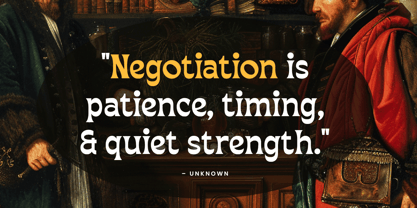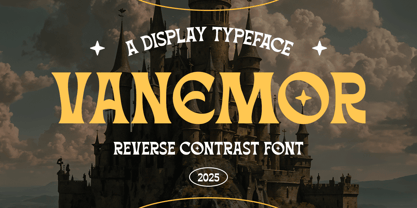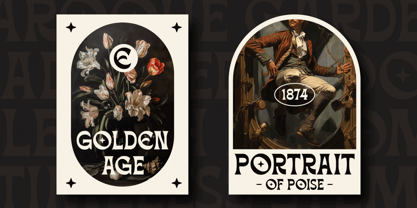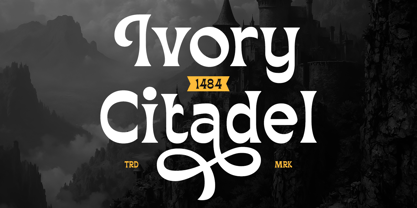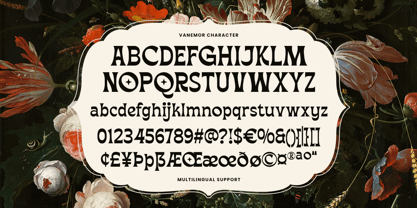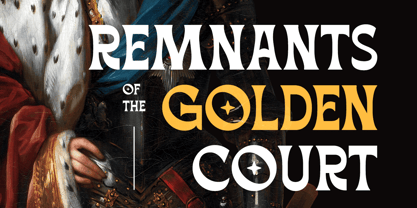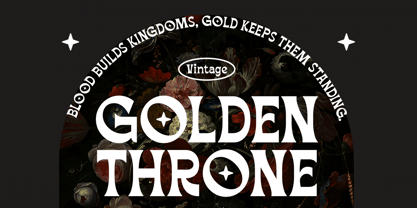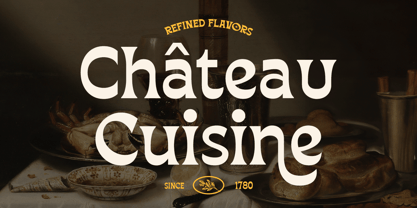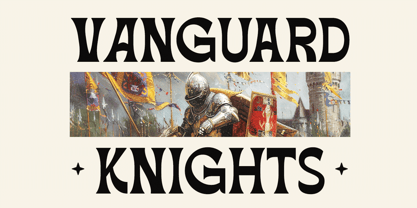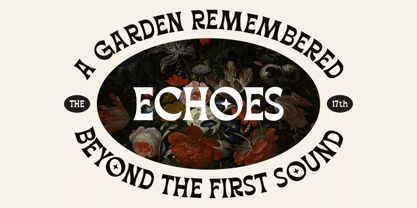
Vanemor
by DGtype
Vanemor is a unique display font featuring a blend of reversed contrast and traditional serif styles. Inspired by modern serif typography and Art Nouveau aesthetics, Vanemor brings a retro-decorative touch that’s perfect for a wide range of creative projects — including posters, logos, logotypes, branding, badges, titles, book covers, magazines, cards, and more.
Designers: Ahmad Ramzi Fahruddin
Foundry: DGtype